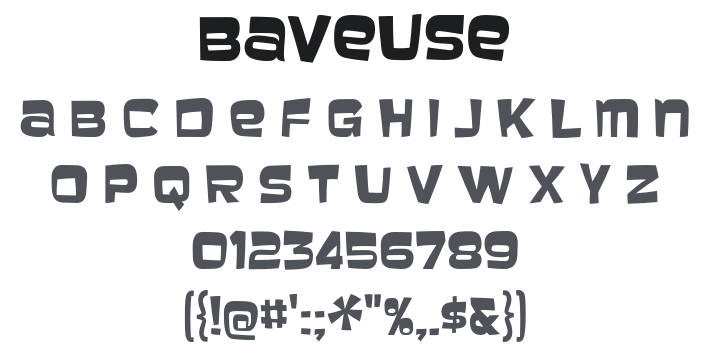
Baveuse Font Family
About Baveuse
Baveuse is a lighthearted, bouncy casual headline typeface with chunky rounded letterforms that feel slightly melted or drippy, giving it a playful, cartoon-like character. OpenType-aware apps automatically shuffle letter variants for a more natural, hand-done look. Great for children's branding, festive posters, cartoon titles, comic-style headlines, and any design needing a fun, carefree tone.